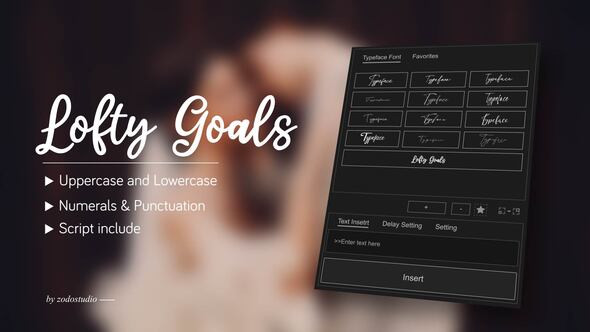
Free Videohive 58780087 Animated Typeface - Lofty Goals, GFXInspire
If you're a video editor, motion designer, or content creator on the hunt for high-quality animated typography, your search ends here! Free Videohive 58780087 Animated Typeface – Lofty Goals is now available at GFXInspire. Crafted with precision and visual excellence, this animated typeface will dramatically enhance your creative work — and the best part? It's completely free.
Whether you're creating YouTube content, promo videos, or presentations, Lofty Goals delivers bold and modern typography animation that helps your text stand out. It's an essential asset for any editor aiming to add sleek, kinetic typography without complex design work.
✨ Why Use Lofty Goals Typeface from GFXInspire?​
The Lofty Goals Animated Typeface isn’t just another free download — it’s a complete design solution optimized for performance and aesthetics. Developed by professionals and now available for free on GFXInspire, this toolkit blends form and function to elevate your video production with minimal effort.
Here’s what makes it a go-to tool:
• 🎯 Clean, minimal animation perfect for all types of content
• 🖋️ Editable fonts, colors, and transitions
📌 Key Features of Free Videohive 58780087 Animated Typeface – Lofty Goals​
Editable Text LayersCustomize fonts, colors, spacing, and animation timing easily
Universal DesignSuitable for everything from cinematic intros to educational content
🎯 Best Use Cases for Lofty Goals Typeface​
The Lofty Goals animated typeface can be used across a variety of content formats. Here's how creators are using it:
• 🔥 YouTube Videos – Use kinetic titles to hook viewers within the first few seconds
• 🎤 Podcast Clips – Add stylish captions and callouts
• 🧑‍🏫 Educational Content – Highlight key information with bold animated text
• 🏢 Business Presentations – Make your slides stand out with animated headlines
• 📱 Social Media Ads – Turn casual scrollers into engaged followers